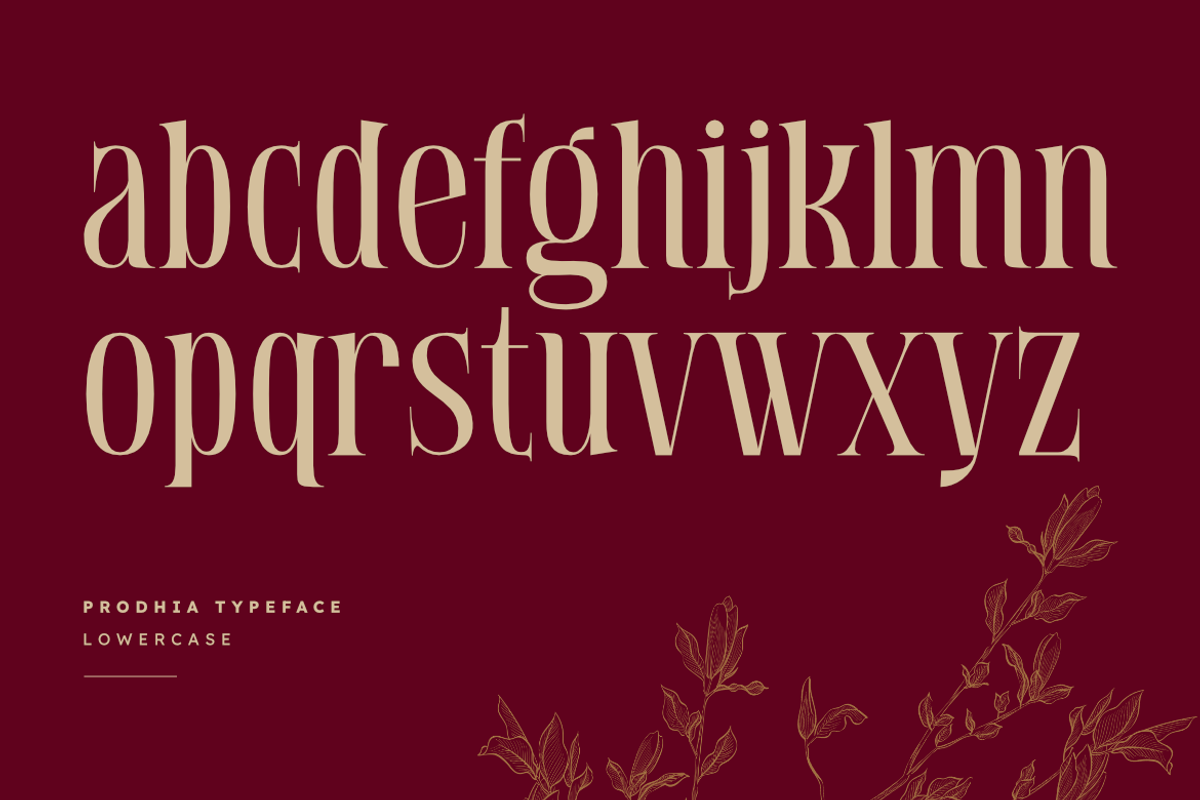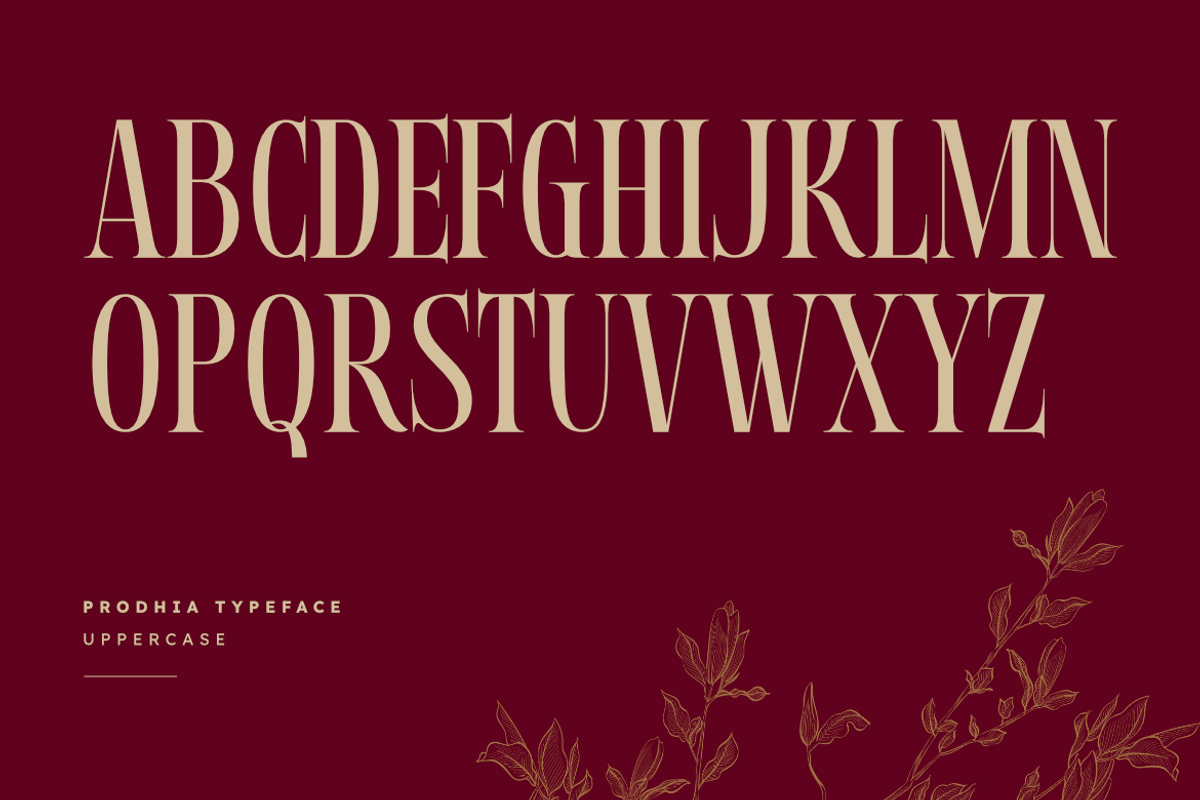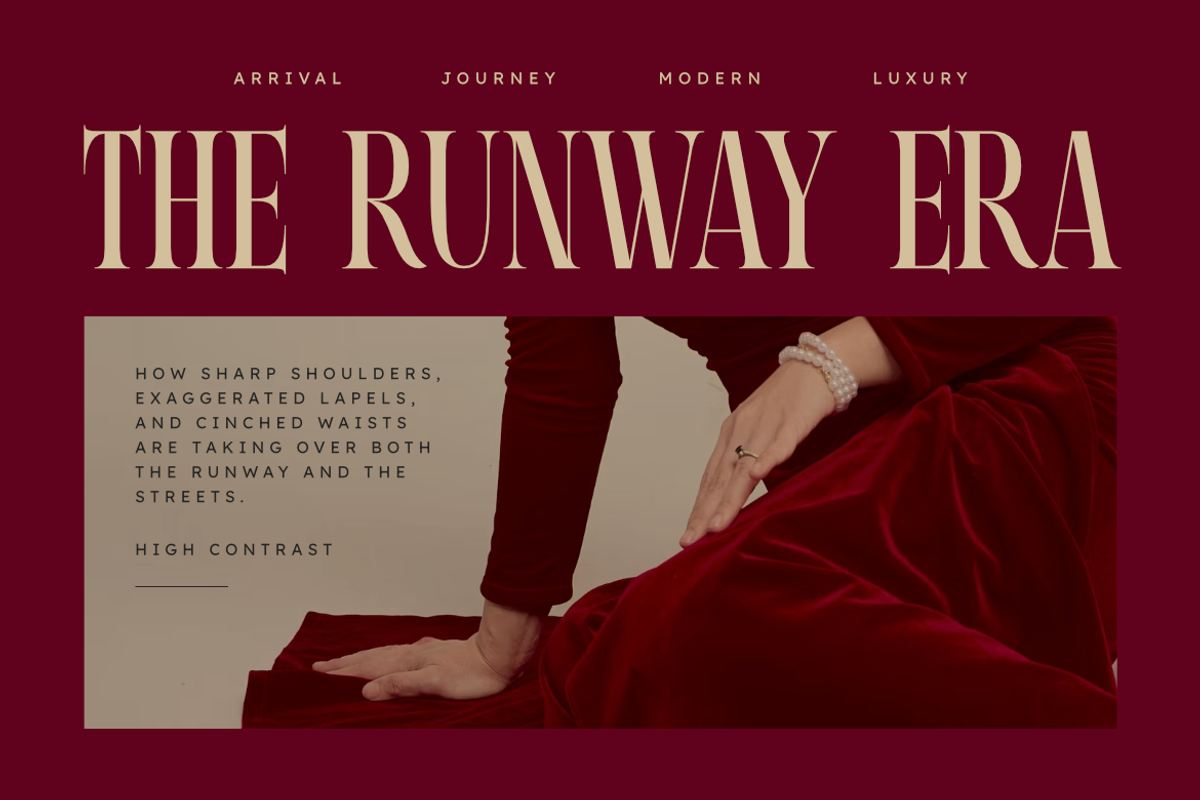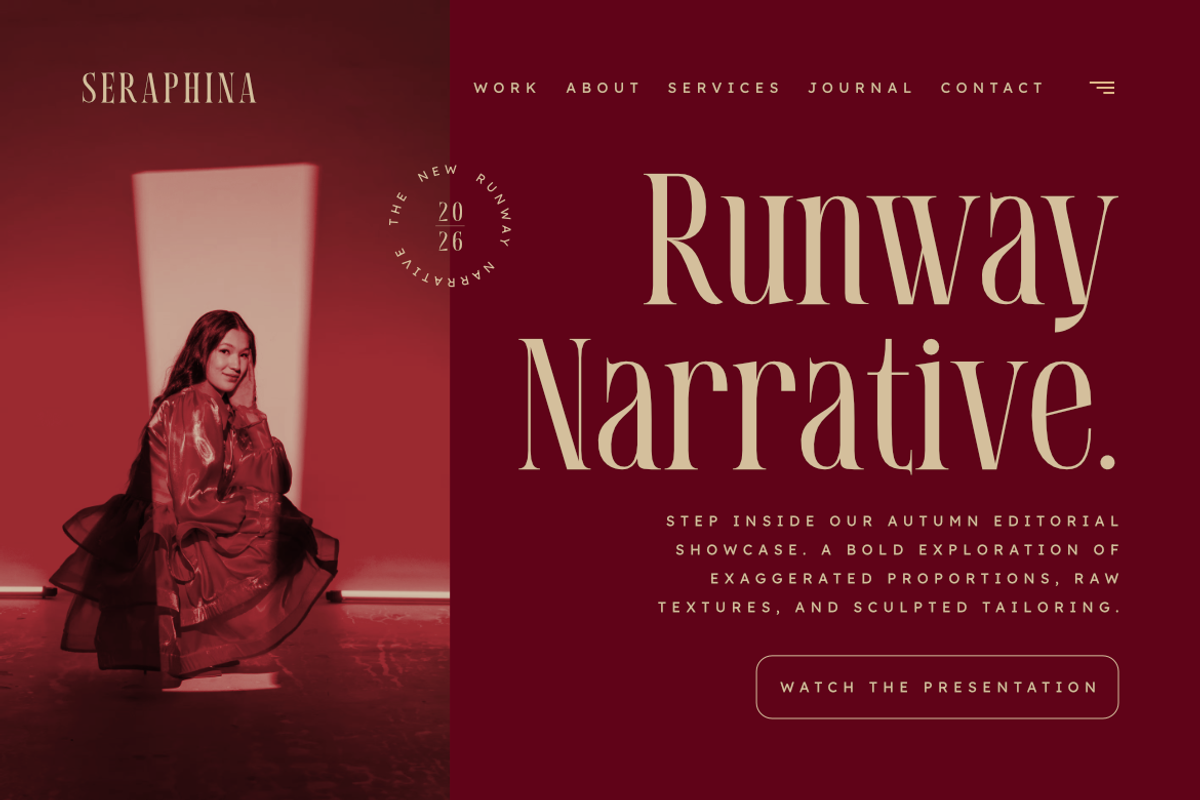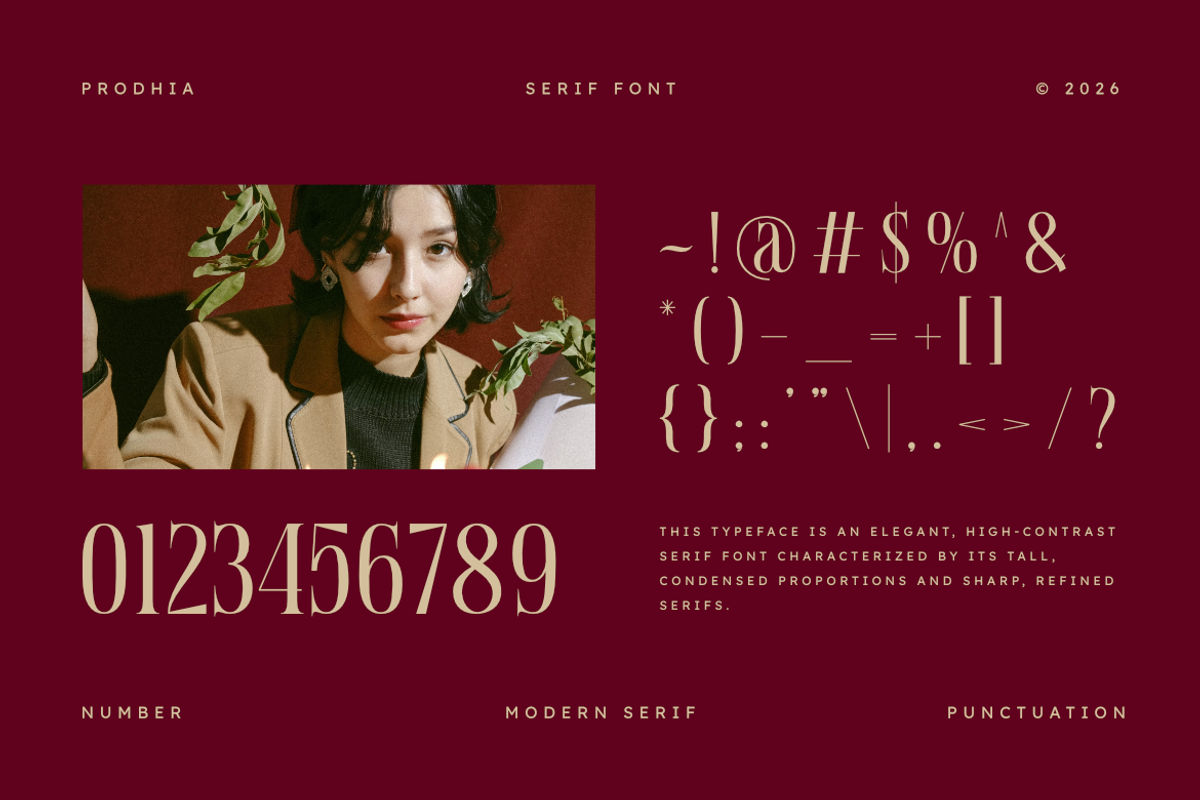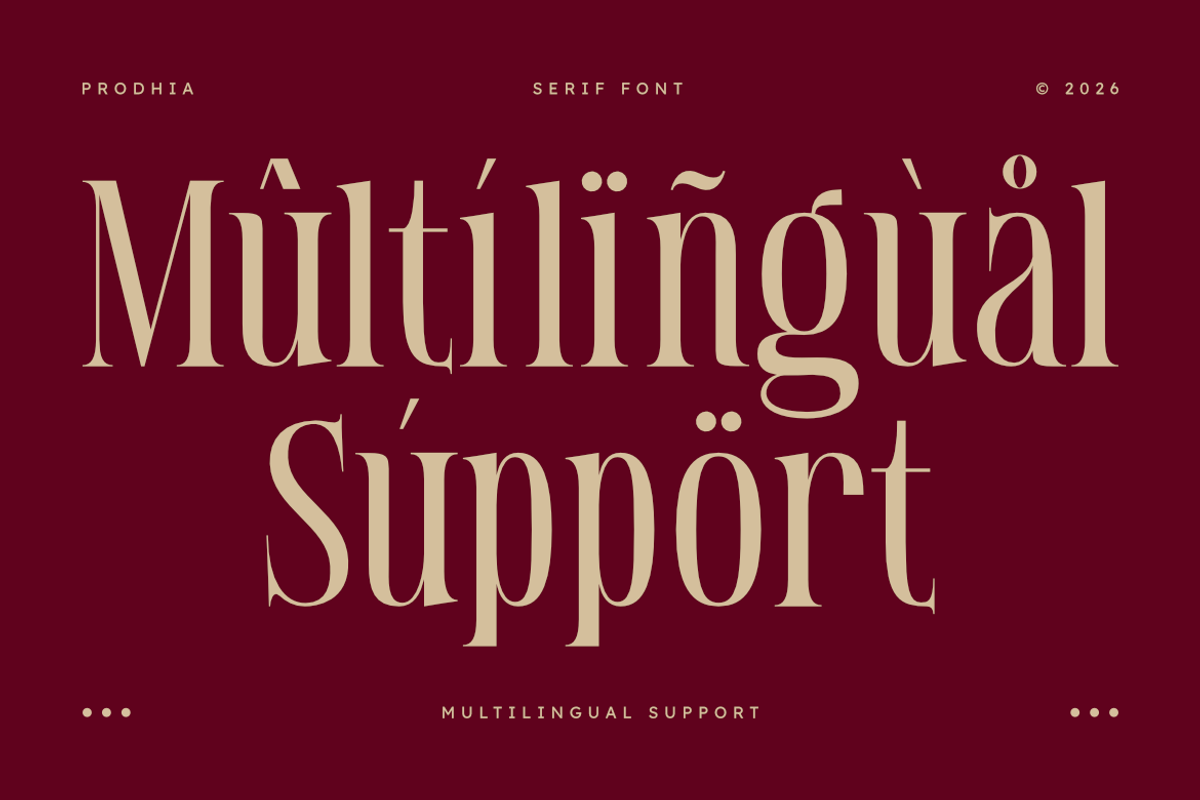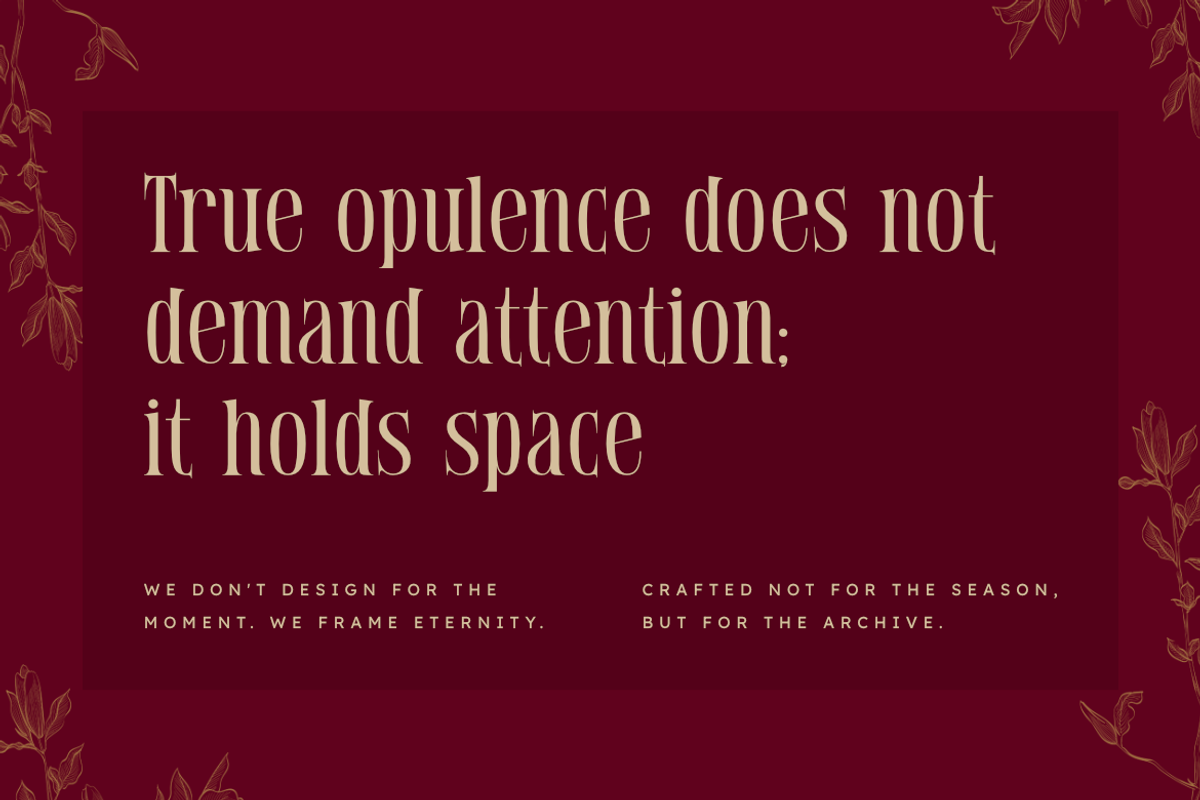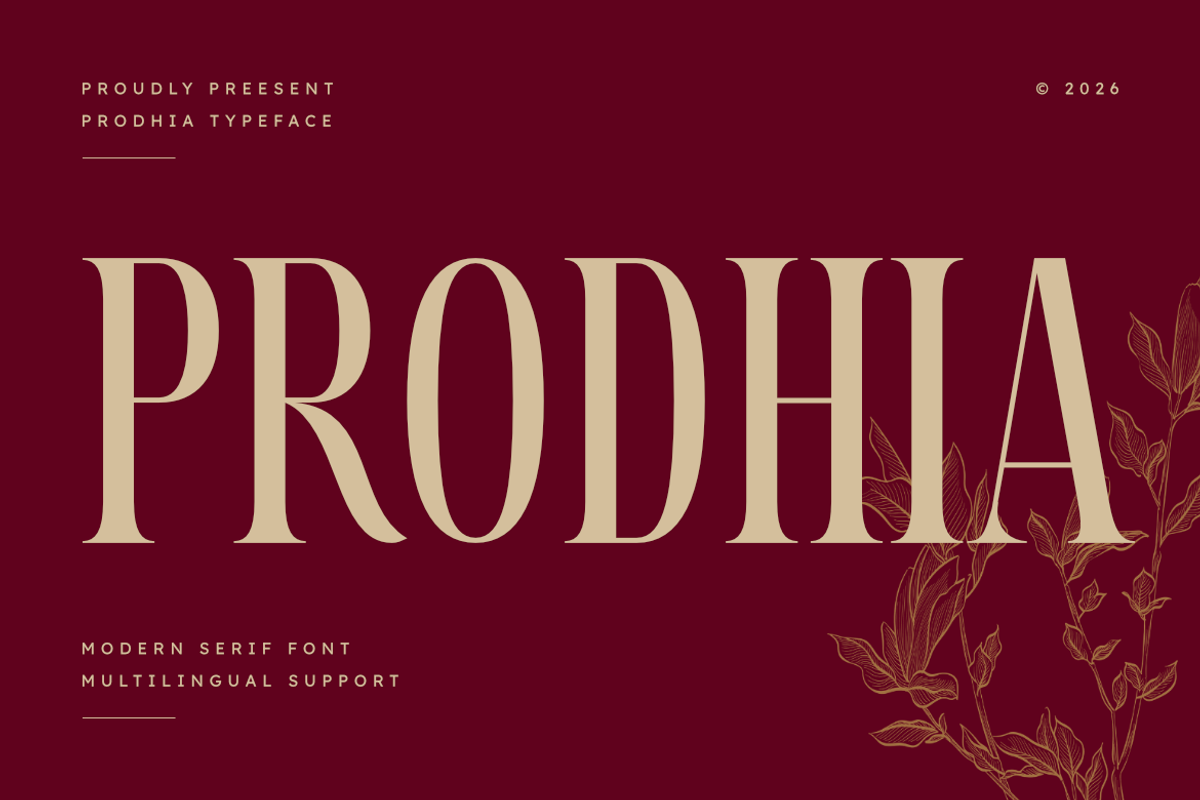
Prodhia | Modern Serif Font
Elevate your branding and design projects with Prodhia, a sophisticated modern serif typeface meticulously crafted for precision and elegance. Blending high condensed proportions with refined aesthetic balance, Prodhia provides a high-end edge to your visual identity.
Whether you are building a brand for a luxury fashion label, designing botanical and editorial layouts, or creating polished stationery and promotional materials, this font delivers a sharp, professional finish. Its sleek silhouettes and elegant serif details ensure that your message commands attention in both digital and print environments.
Multilingual support included.
Perfect for high-impact headlines, luxury logos, and editorial typography.